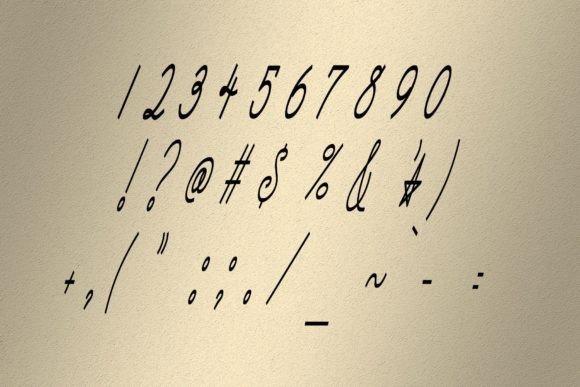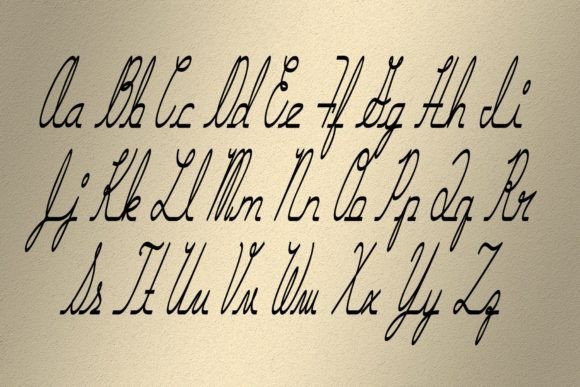
About Nixon Font
Introducing a captivating script font renowned for its incredibly unique style, making it the perfect choice for your design projects. Embrace the distinctiveness and versatility of this font as it effortlessly elevates and adds a touch of individuality to your creative endeavors.
The script font’s incredibly unique style sets it apart, adding a special character to your text that is both eye-catching and memorable. Whether you’re working on logos, branding, invitations, or any creative project, the uniqueness of this script font brings a sense of creativity and flair to your designs.
This font is a valuable asset in your design toolkit, allowing you to infuse your projects with a touch of originality and style. Its versatile nature ensures it can seamlessly integrate into various design contexts, providing you with the freedom to express your artistic vision.
Consider this script font as an essential design element that adds a distinctive flair to your creations. Let its incredibly unique style become the defining feature that sets your projects apart, making them stand out and leave a lasting impression. Embrace the beauty of uniqueness and make this script font a key component in your creative toolkit.